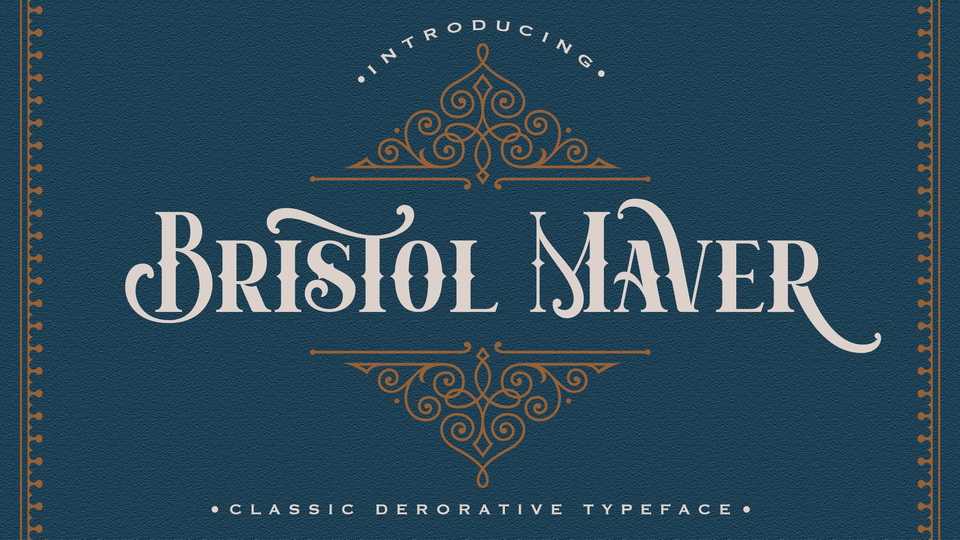
Download Bristol Maver font, a unique, stylish and elegant decorative typeface with a vintage feel. Bristol Maver will look truly outstanding in a wide range of contexts.